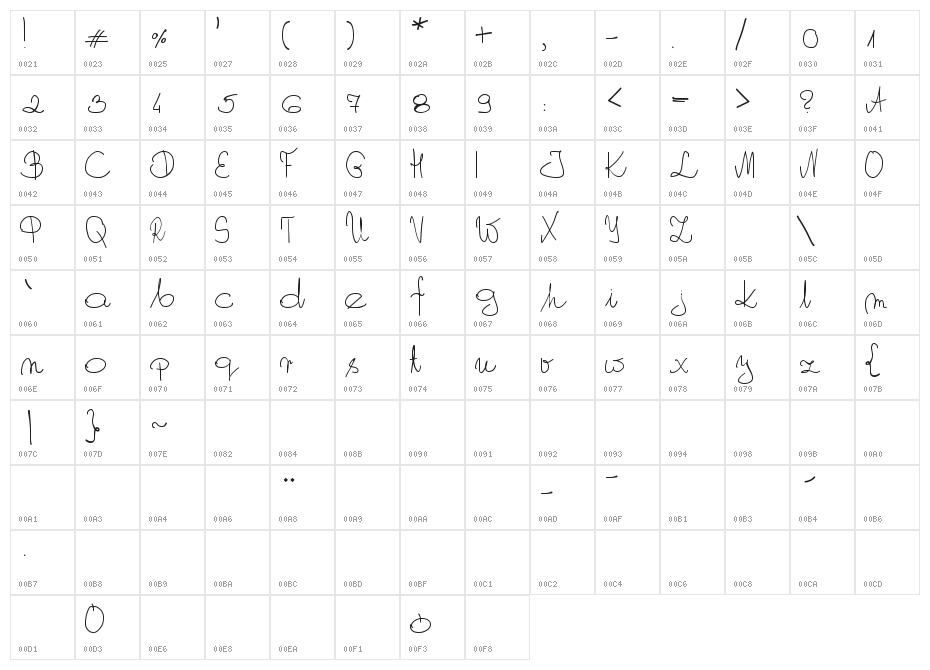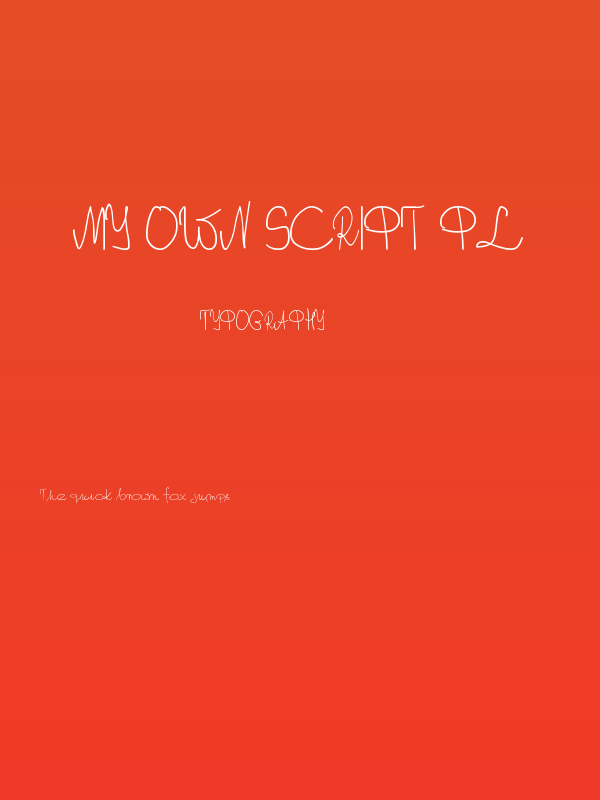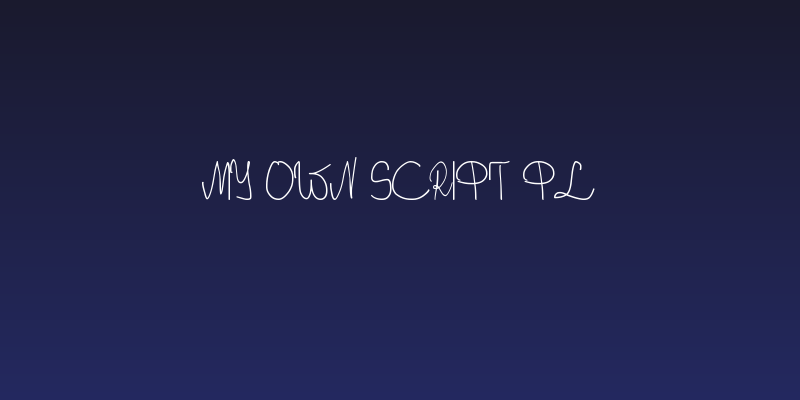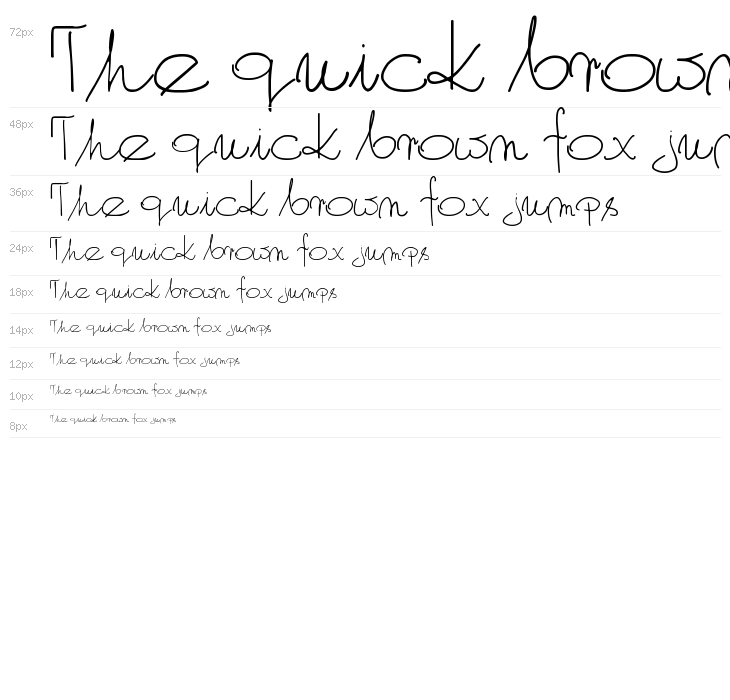
My Own Script PL Font
✎ Handwritten
| 使用场景 | Logos, Invitations, Greeting Cards |
| 推荐项目 | Ideal for creative projects such as invitations, greeting cards, personal branding, and artistic posters. |